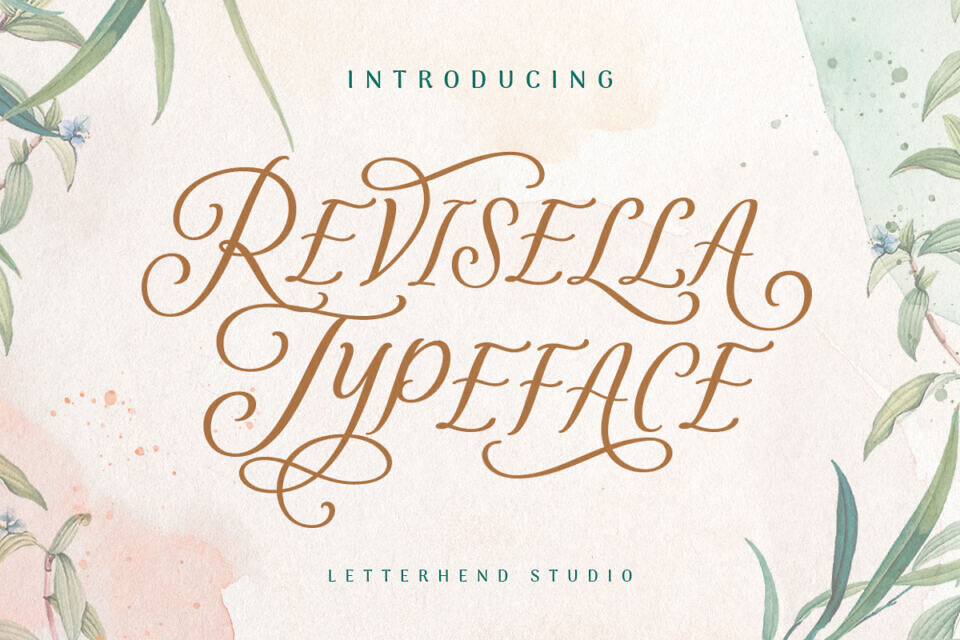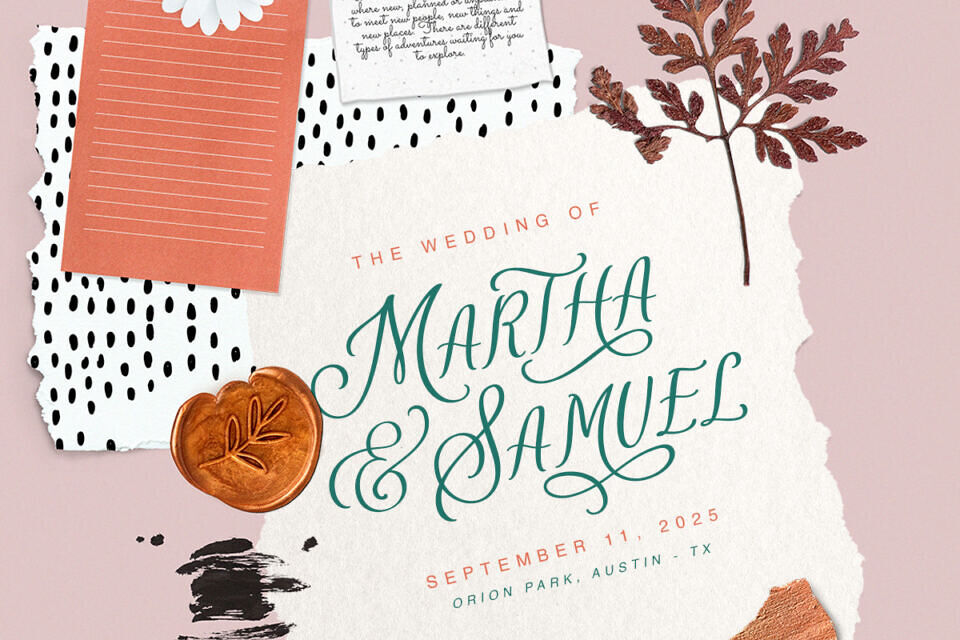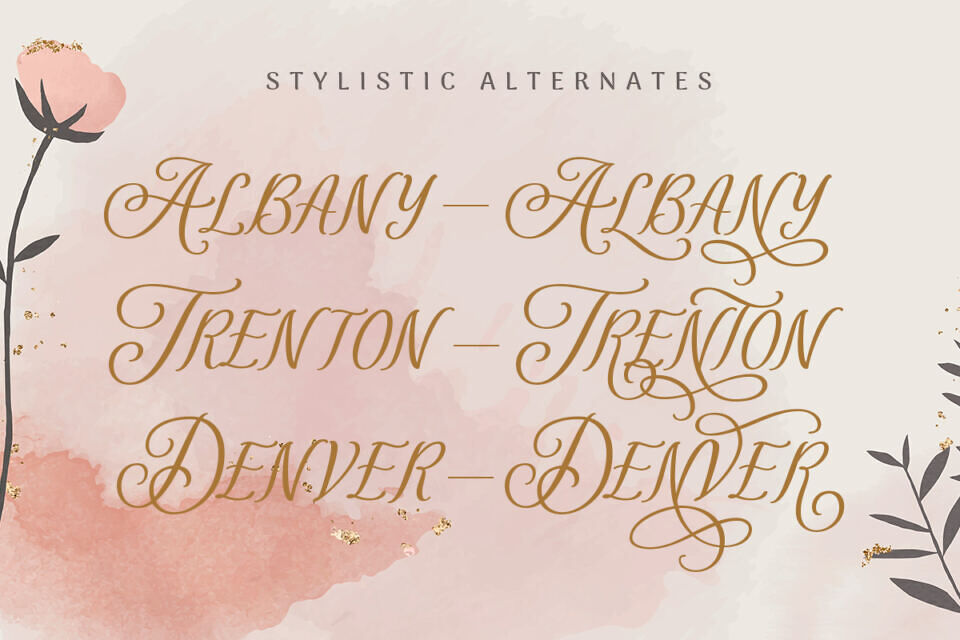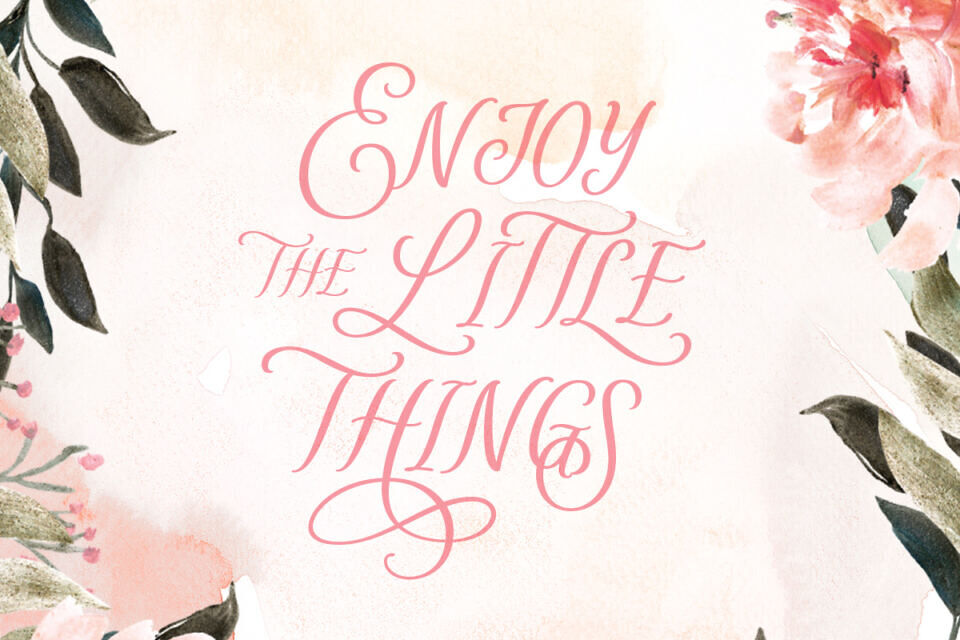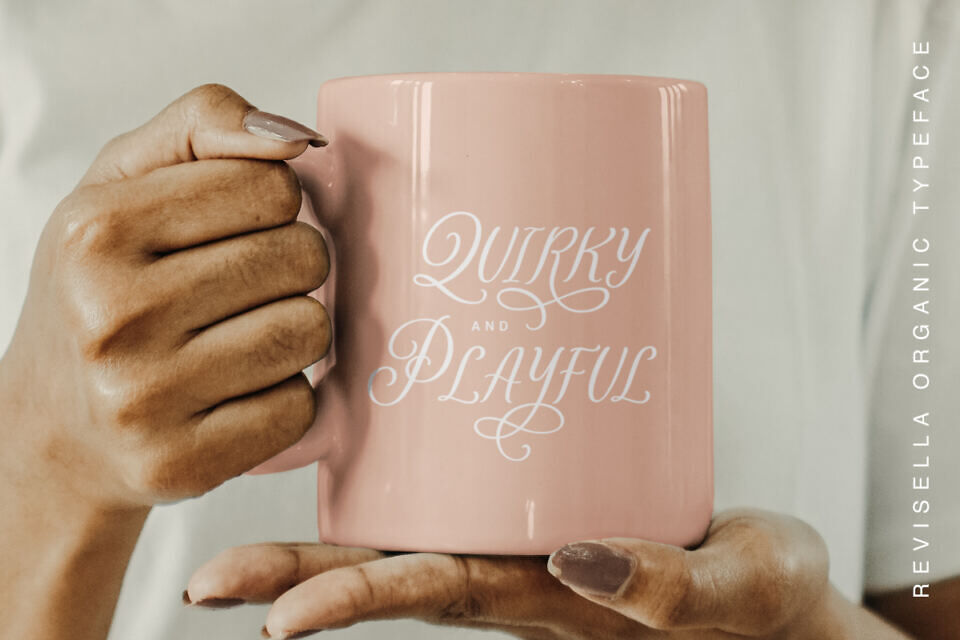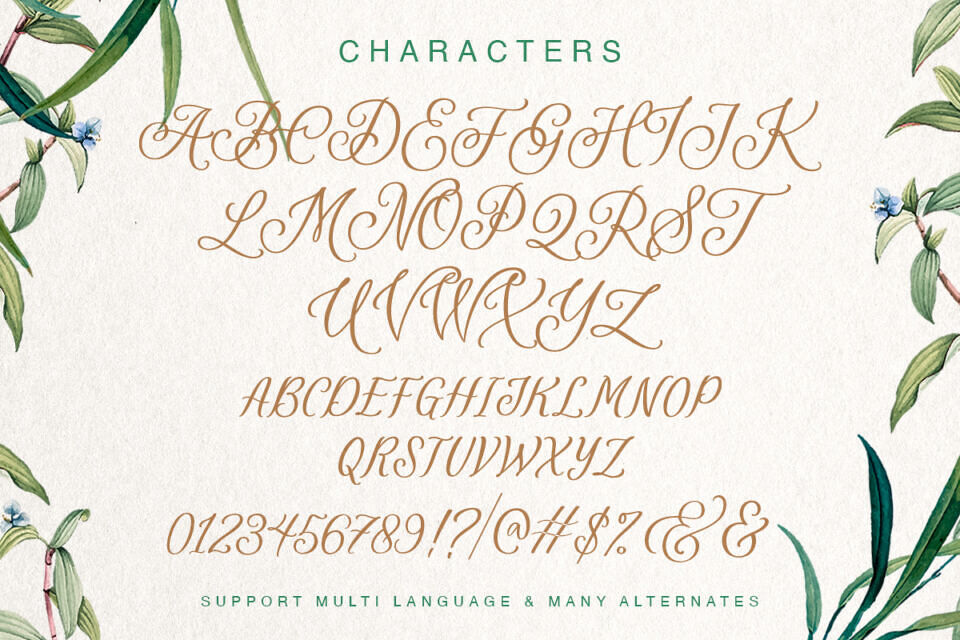
Revisella Font
Revisella Typeface is a beautiful and classy display font. What makes this font looks unique is because this font has all caps and alternates with swashes. It has many swashes that allows you to create beautiful lettering instantly.
This font perfectly made to be applied especially in logo, and the other various formal forms such as invitations, labels, logos, magazines, books, greeting/wedding cards, packaging, fashion, make up, stationery, novels, labels or any type of advertising purpose.